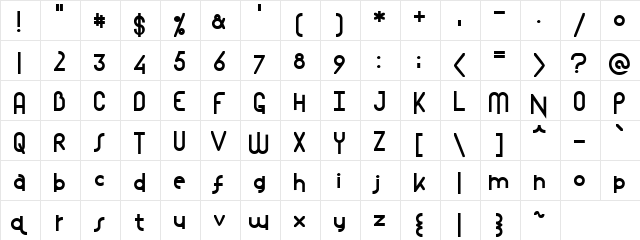
Mostlios Ƶ! !:렝"o?
Design Context for Mostlios Typeface
Mostlios is a composed and adaptable typeface that performs quietly and consistently across a wide range of design contexts.
Pro Tip: Use Mostlios in both headline and body roles to test its range before committing to a single application.